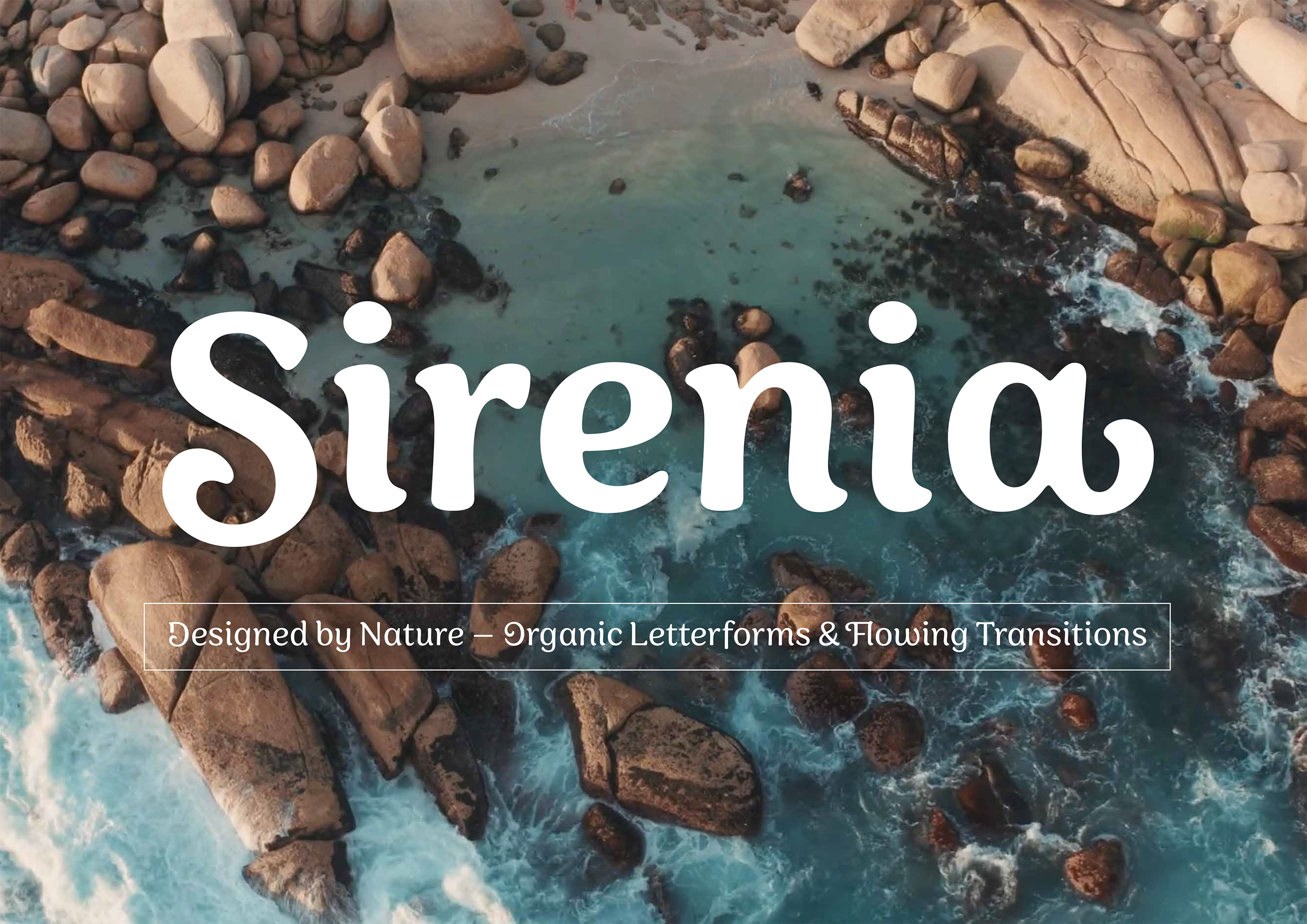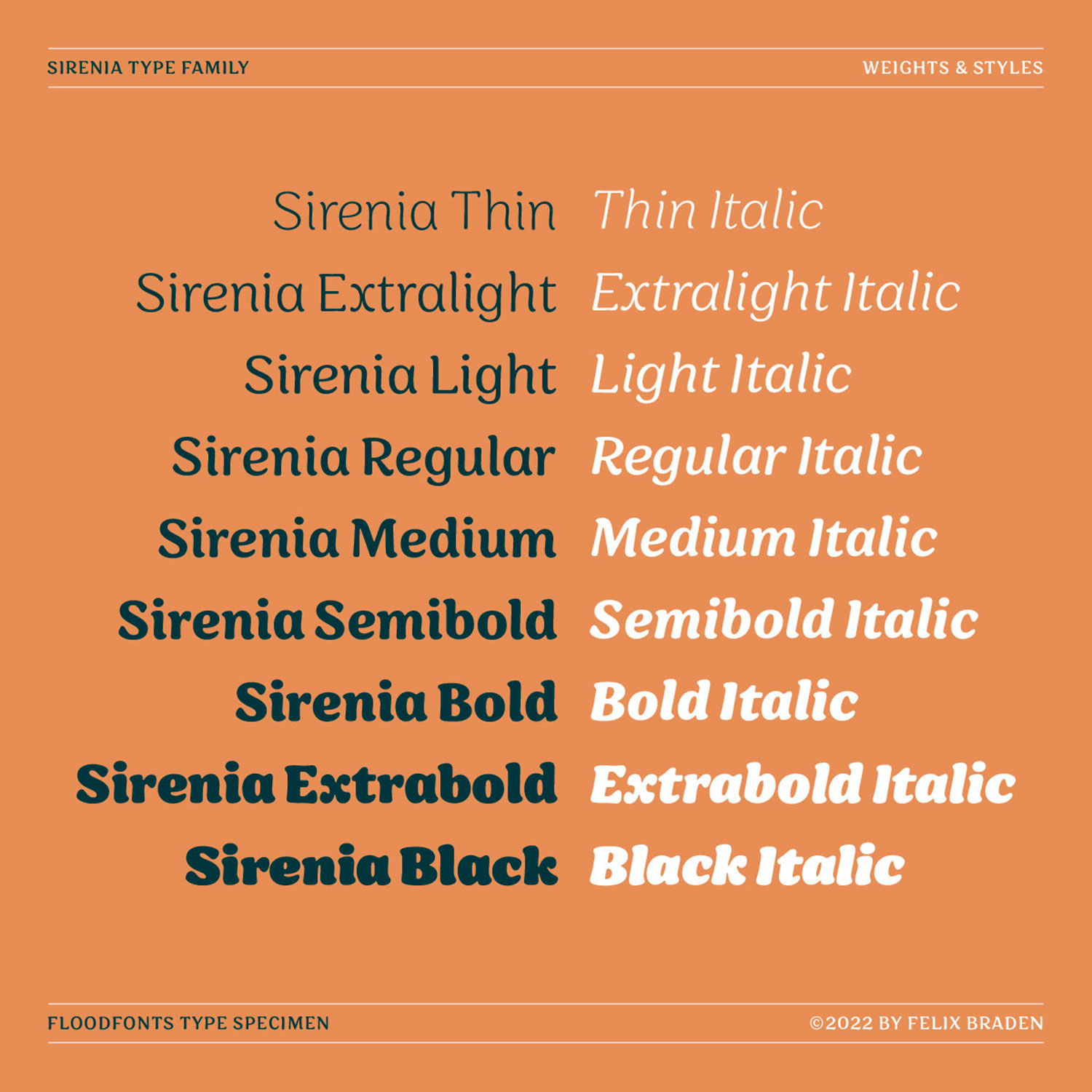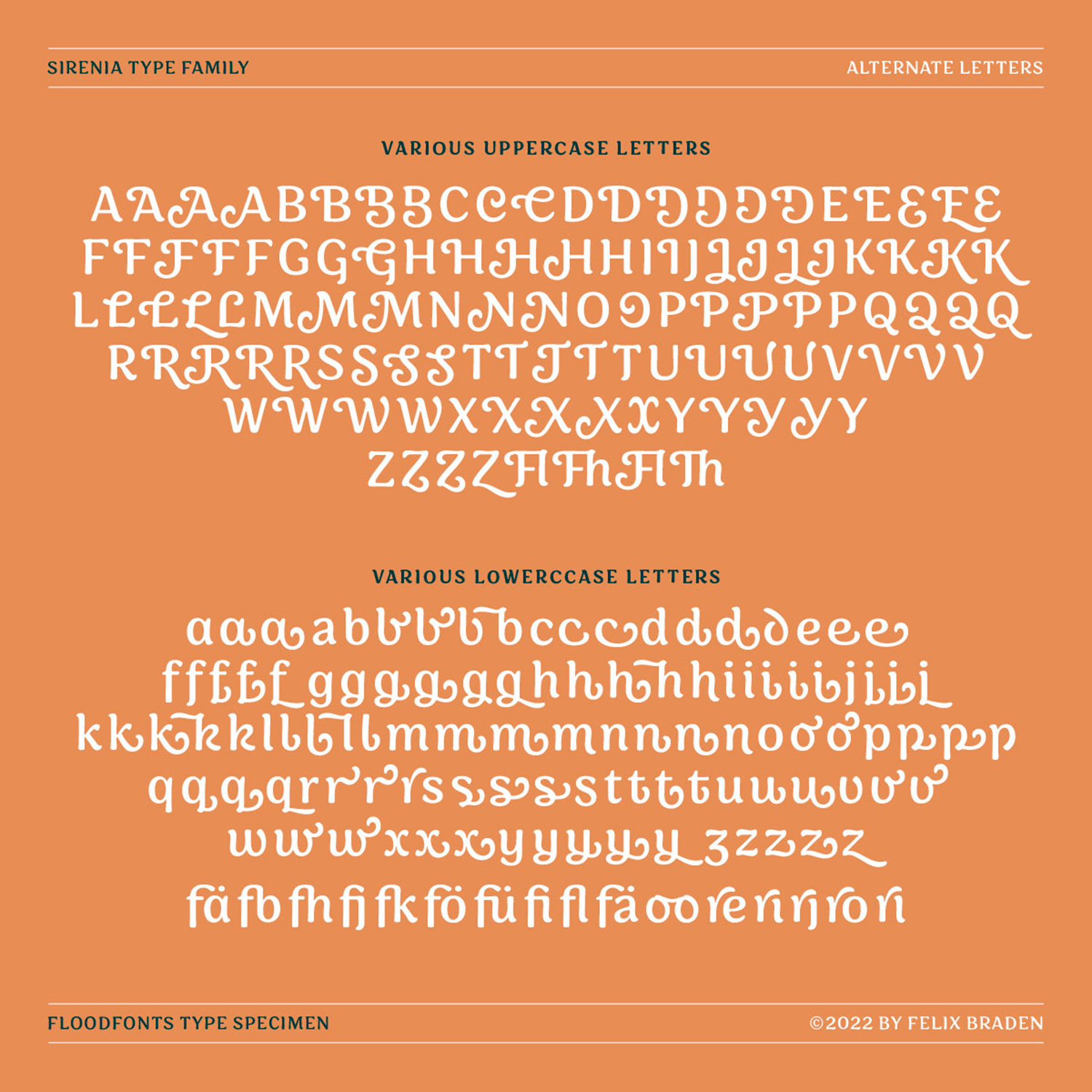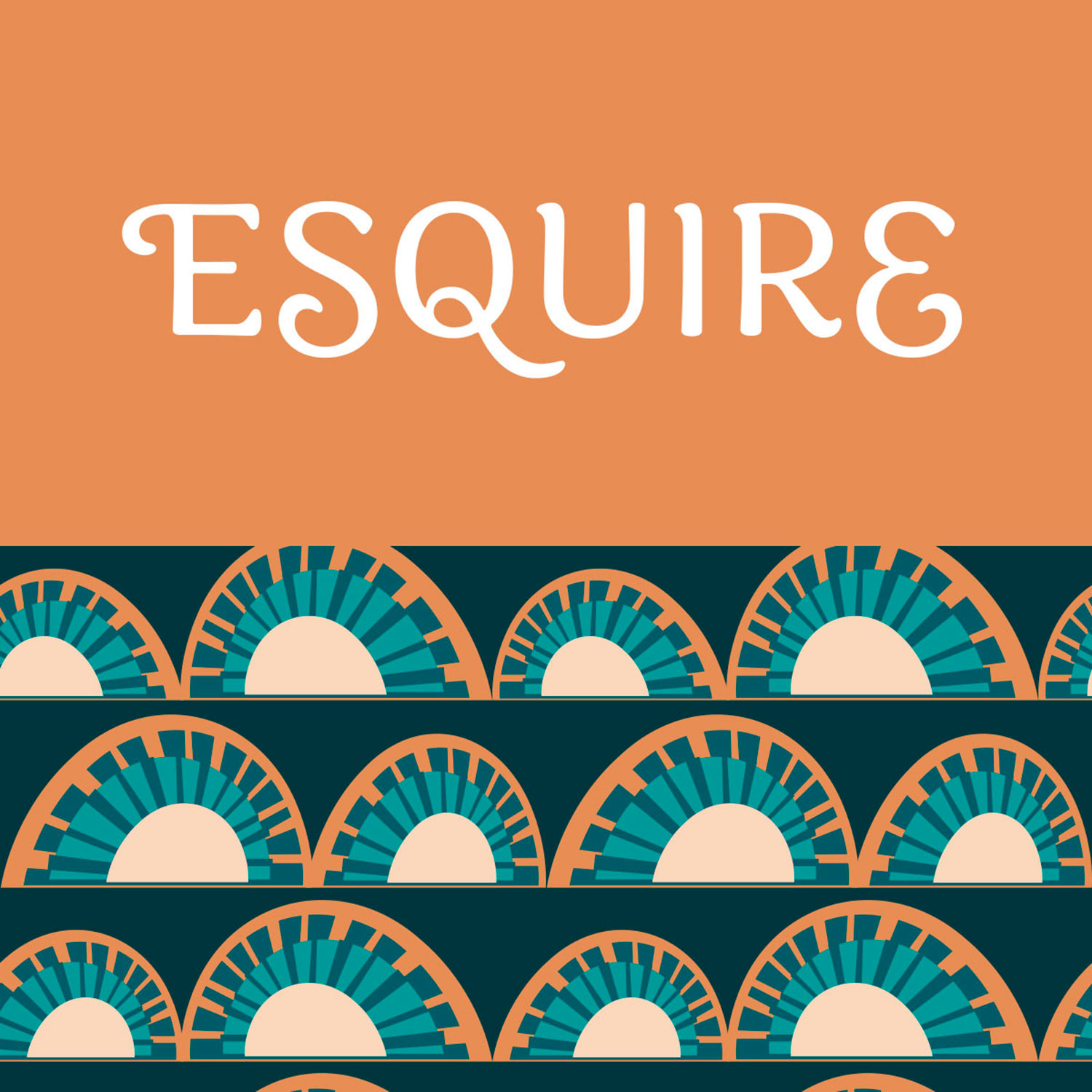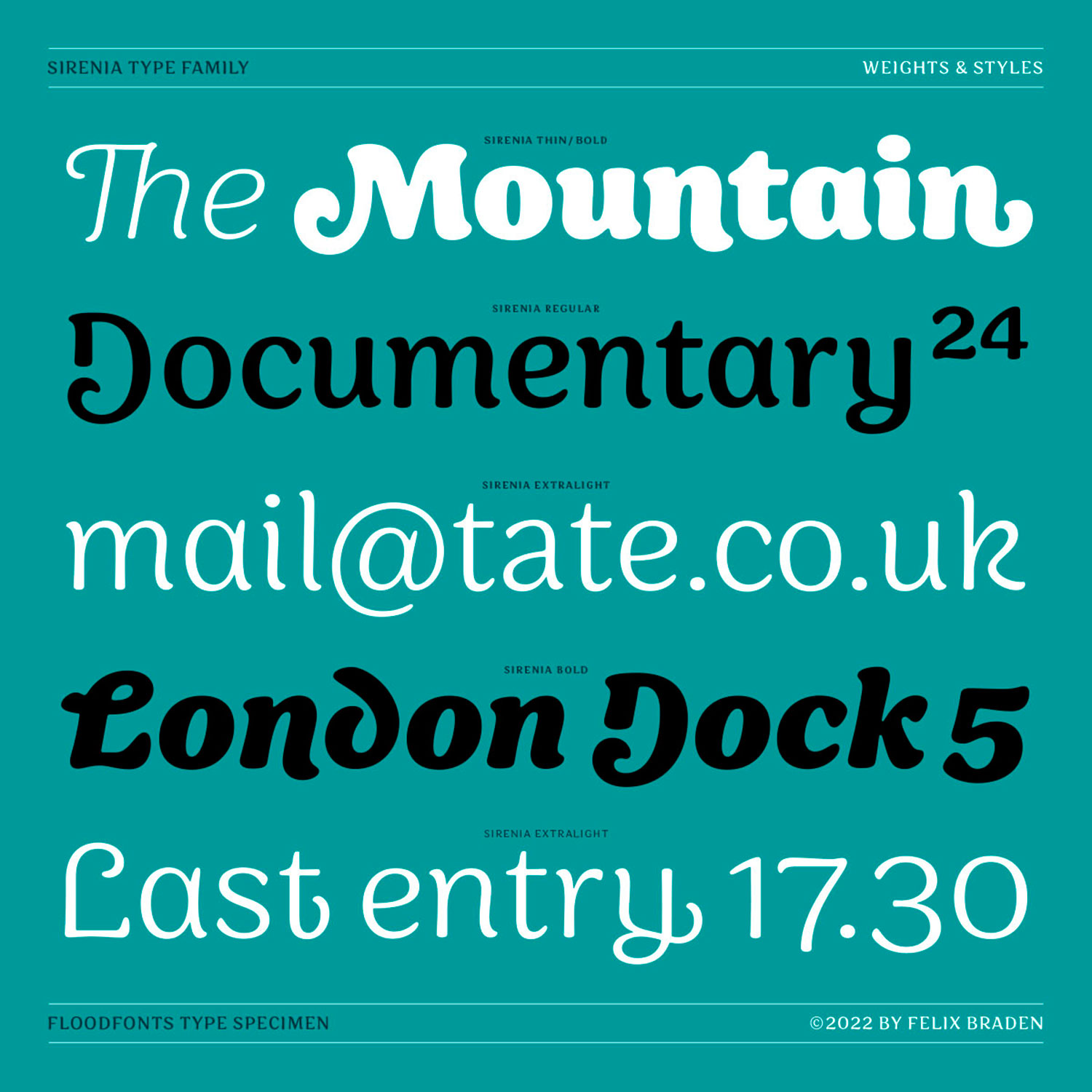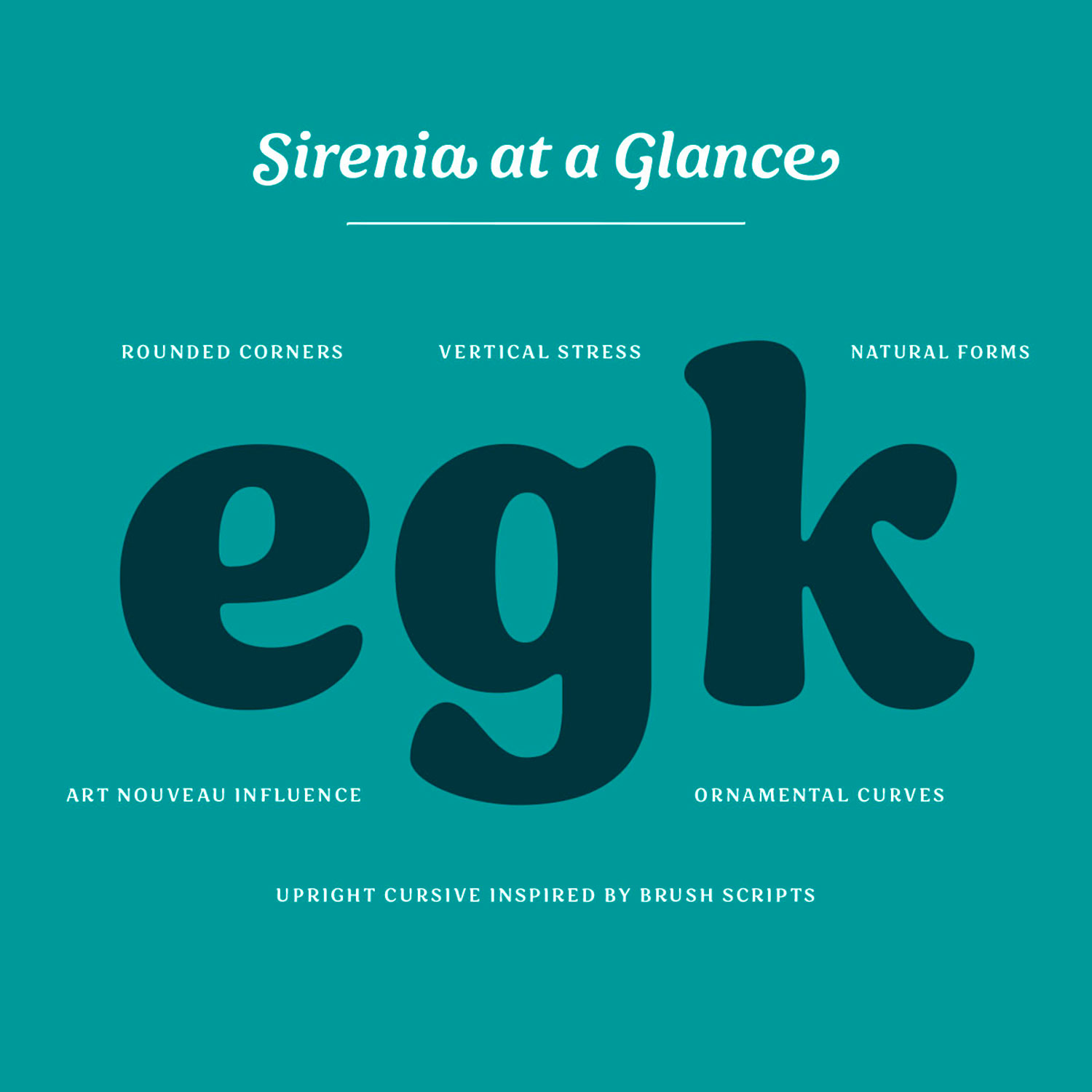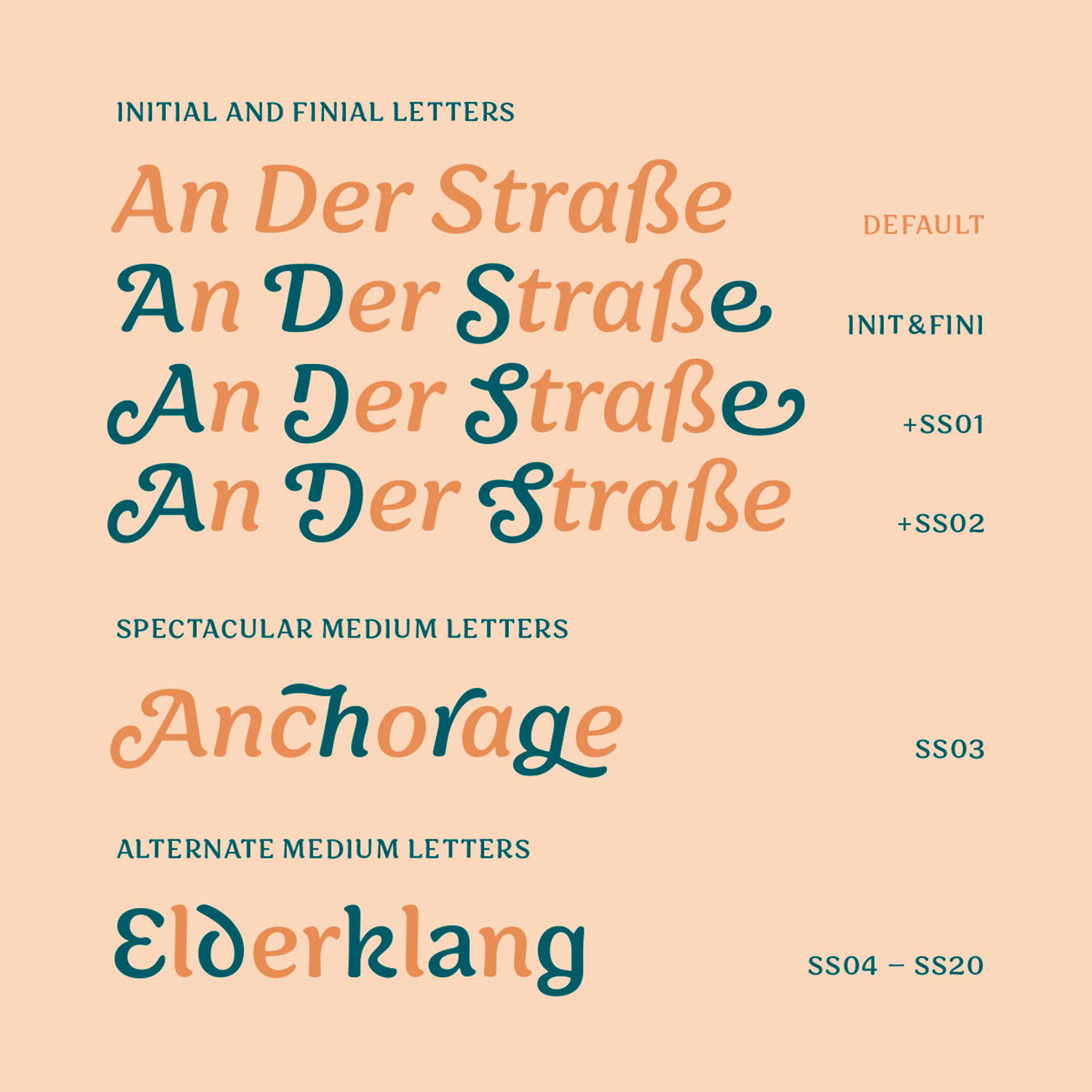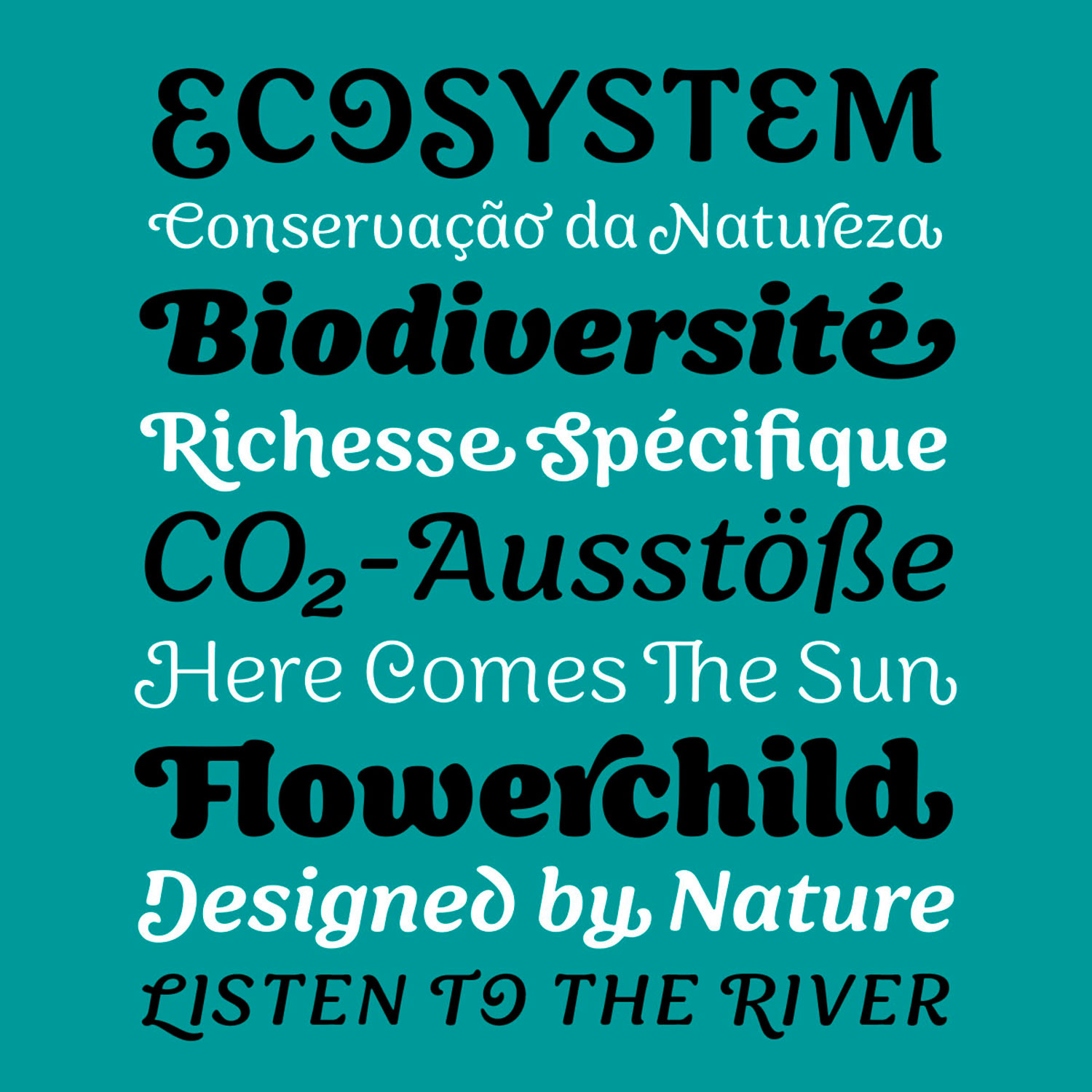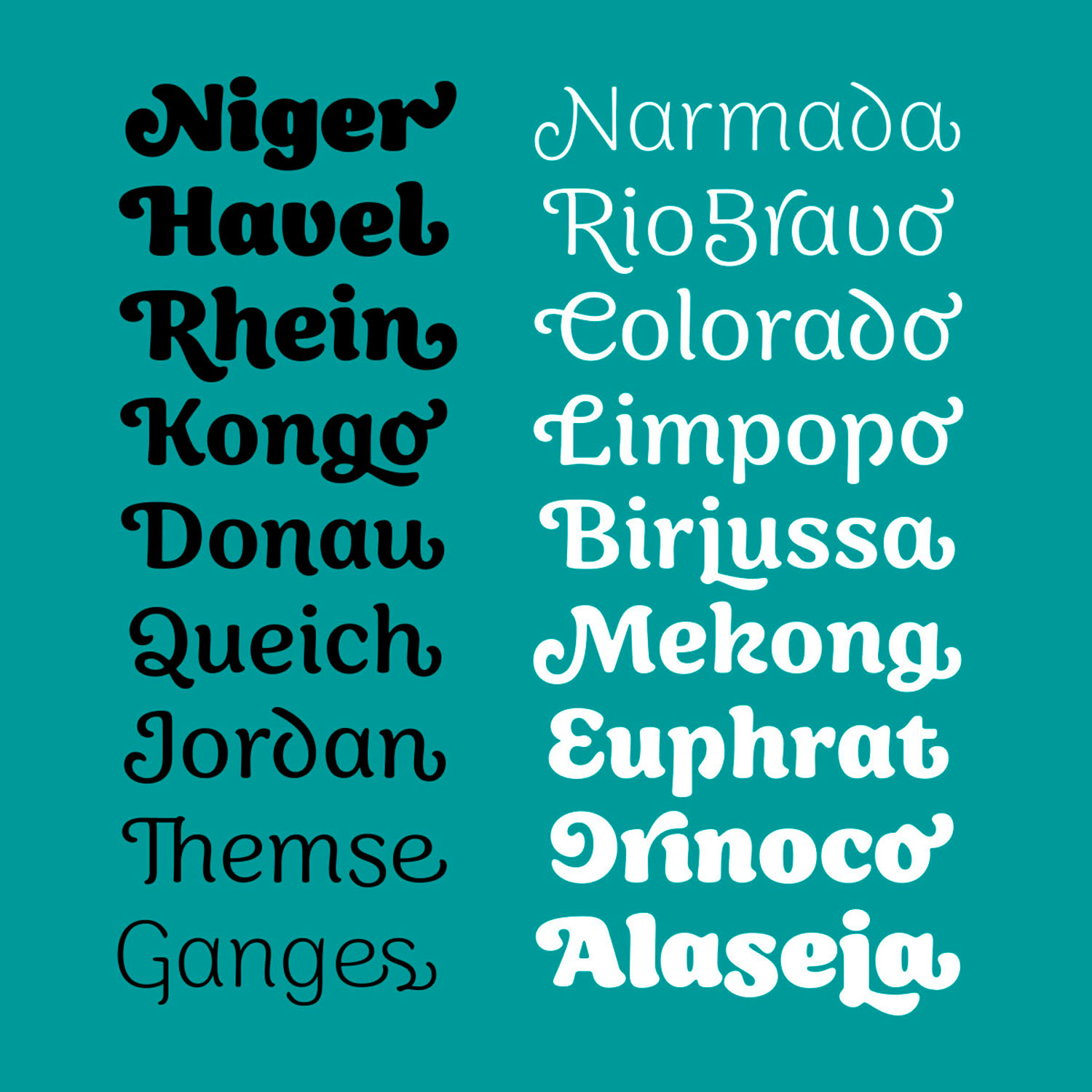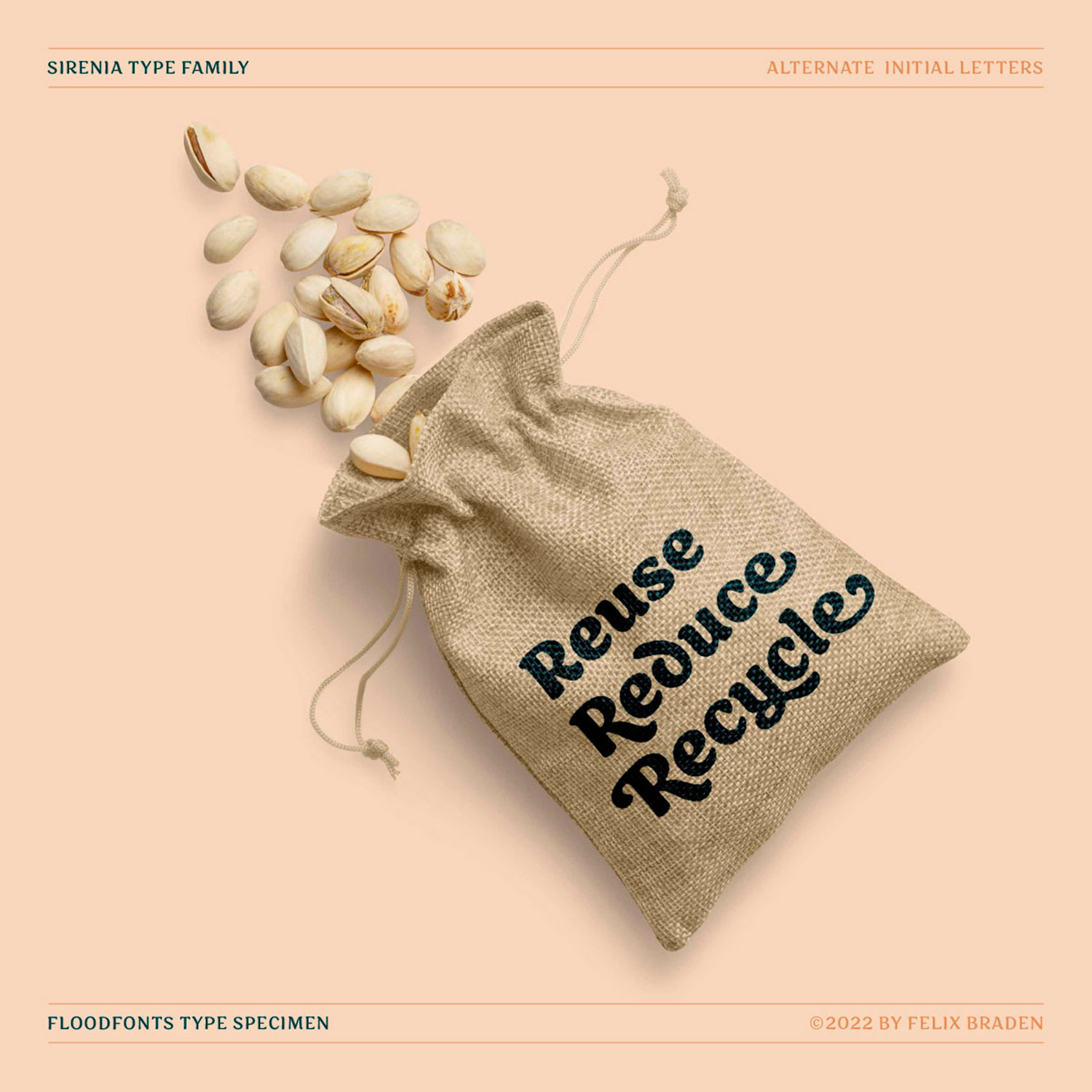
new typeface Sirenia has just been released: Designed by Nature – Totally Organic Letterforms & Flowing Transitions. The best thing about it? During the first month, it comes with a 60% discount on
Sirenia is a friendly display face with rounded corners and flowing transitions. The letters have a very organic look and feel, as if naturally grown. There are clear calligraphic influences in the typeface, since the letterforms are based on a written construction, all drawn with a single stroke. This authentic natural look is ideally suited for lifestyle products, the food & beverage sector and for sustainable design. With nine weights and corresponding italics, the typeface offers a wide range of expressions: If the light weights appear elegant and filigree, the typeface changes its character to a dynamic brush typeface in the medium weights, and in the heavy weights it takes on a fun, almost psychedelic bubblegum aesthetic.
Sirenia’s 1270 characters contain many decorative letters and swash variations for initial, medial and final letters. This gives the designer the possibility to work more as a lettering artist than a typographer and to create lively logotypes according to his own ideas, matching the respective letter combination. This makes Sirenia a great choice for branding, packaging and advertising. Despite its display qualities, Sirenia is also well legible in small font sizes and also looks good on the screen. Some words about the process that went into this font: The early work on Sirenia started twenty years ago with a student project at the University of Applied Sciences Trier with Prof. Andreas Hogan.
Using the Blend Fonts feature of the type design software Fontographer, Felix tried to interpolate different type styles and take inspiration for new letterforms from the fragmentary results. By blending the unpublished typeface “Somnolence” by his mentor Jens Gehlhaar with a sans serif typeface, Felix developed the idea of an upright cursive that combines rounded drop-like serifs with the upstrokes of a handwritten script. The project was later published as a single font under the name “Sadness" by the famous foundry of Swedish type designer Peter Bruhn, who died unexpectedly in 2014. Two years ago, Felix stumbled upon his old designs again and was surprised by the good legibility and relevance of the design. The organic shapes and ornamental curves made the font look like a contemporary antithesis to the minimalism of Geometric Sans. He decided to expand the font as a family and completely rework it.
The designer started with manual drawings and quickly realised that the contrasts between angular and rounded terminals were too much for a single typeface. Therefore, he drew consistent shapes that reminded me of flowing, melting forms. This changed the design so much that I decided to rename the typeface “Sirenia” – a reference to the hanging snouts of manatees. In the last step, Felix added numerous alternative letters to the alphabet. The nature-inspired design simply made sense to have ornaments grow and flourish. So there is at least one alternative for each letter and three or four variants for the majority of them, giving the user lots of options for combining letters in a lively and expressive way.Sirenia is available on